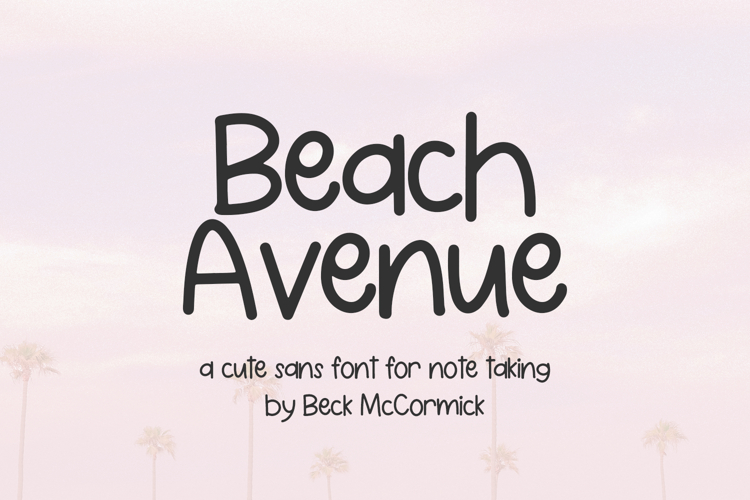
Beach Avenue Handwritten Sans
Say hello to Beach Avenue Sans. Beach Avenue is a cute handwriting font perfect note taking, digital planning, teachers & classrooms, and more.